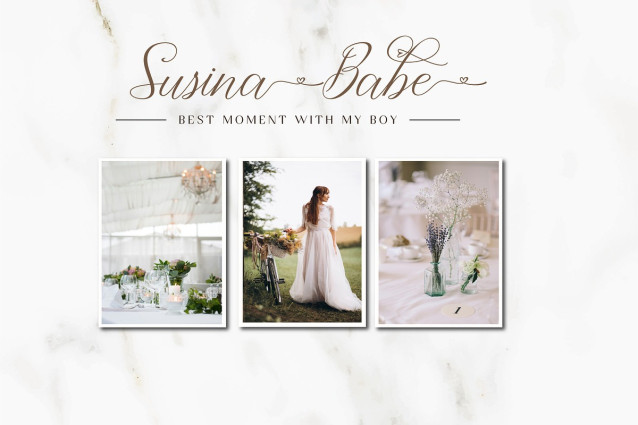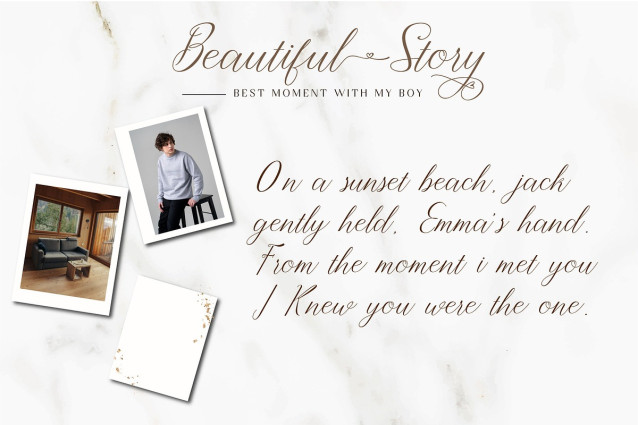
Selly Font
Selly Font is a sophisticated and modern font designed to elevate the elegance of invitations, wedding themes, and fashion branding. With its refined strokes and fluid curves, it captures a perfect balance between classic calligraphy and contemporary style. This font is ideal for adding a touch of luxury to event stationery, branding materials, and editorial designs. Its versatility makes it suitable for everything from formal wedding invitations to chic fashion lookbooks, giving each project a distinguished and timeless appeal.